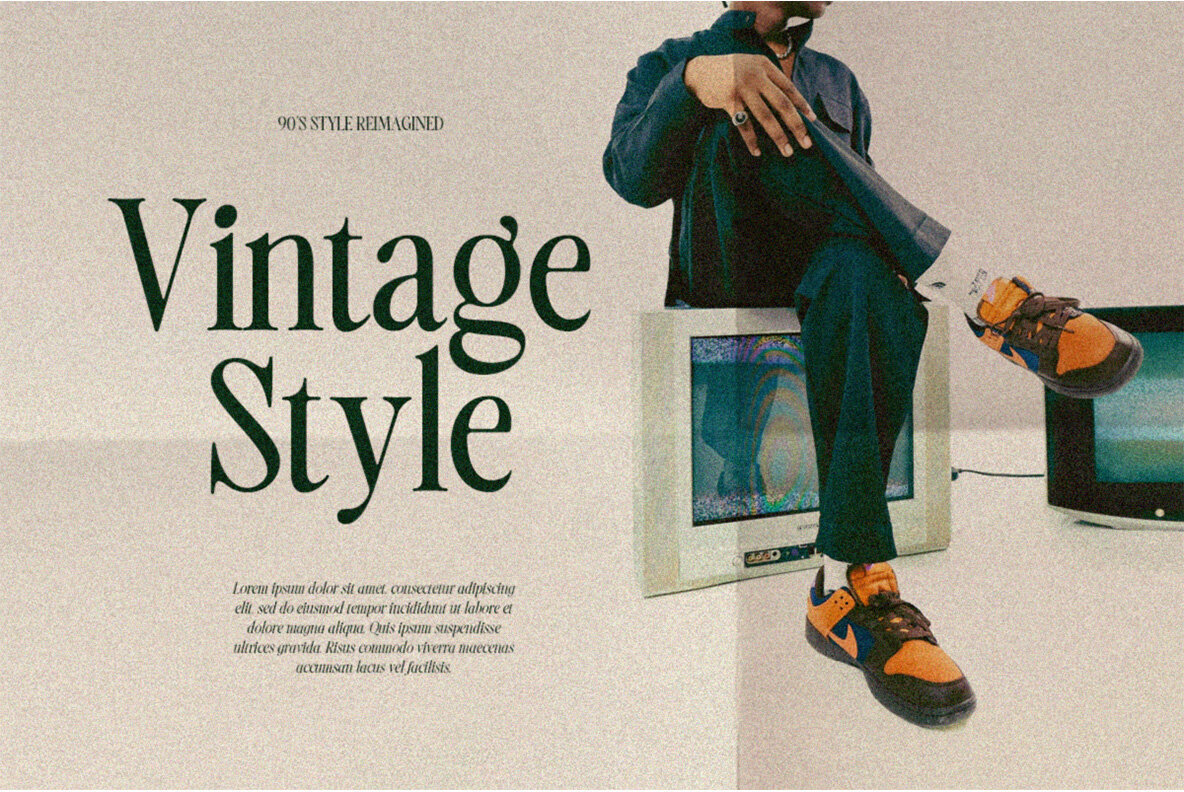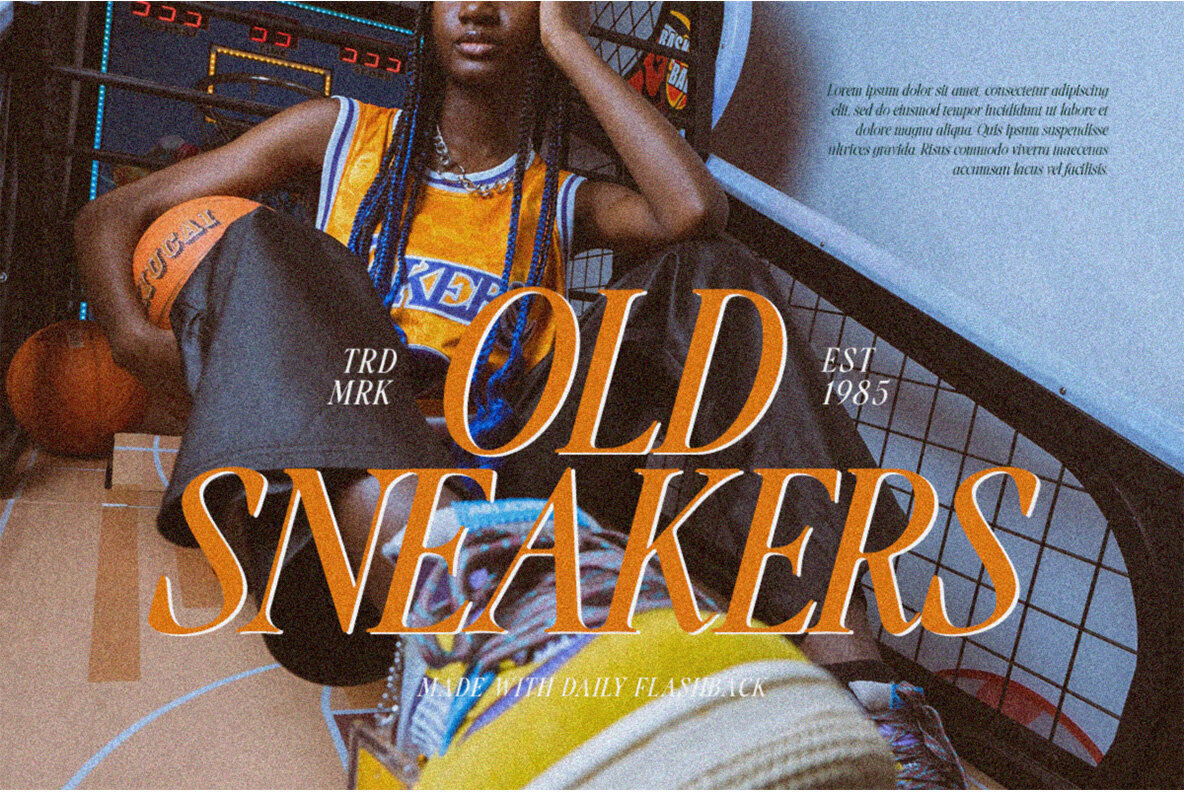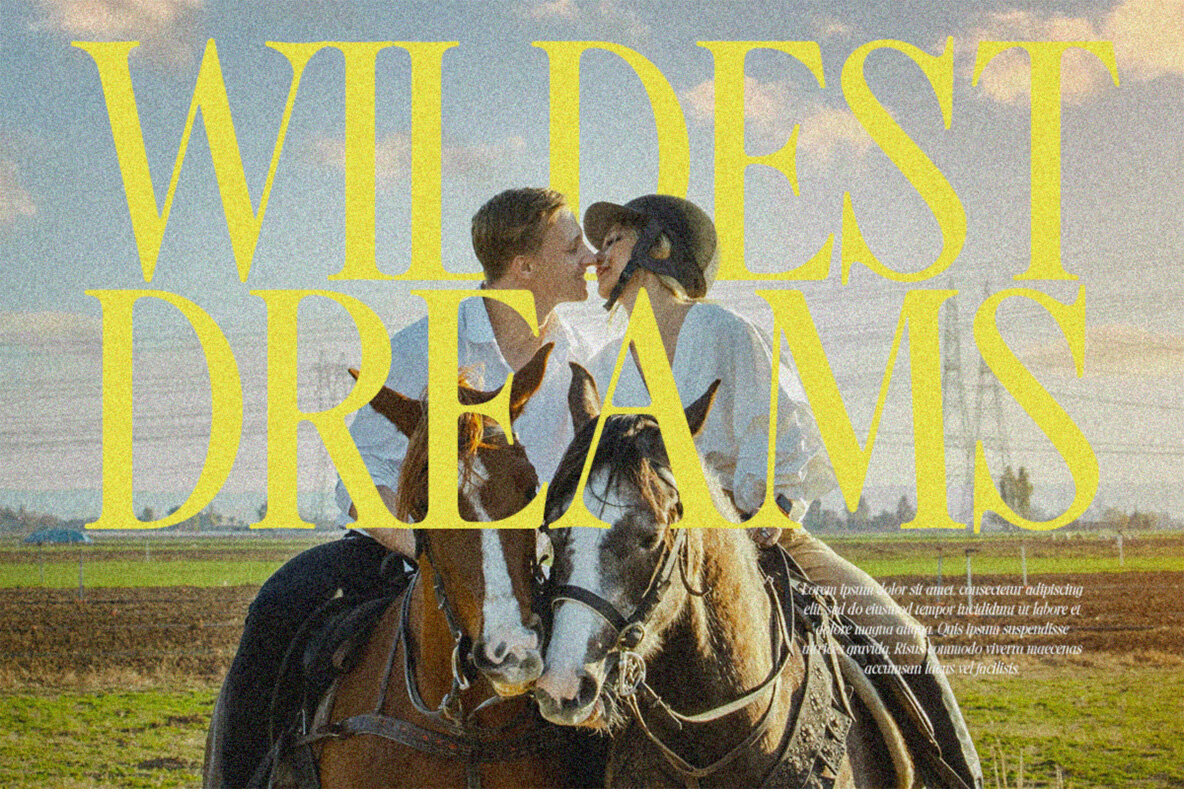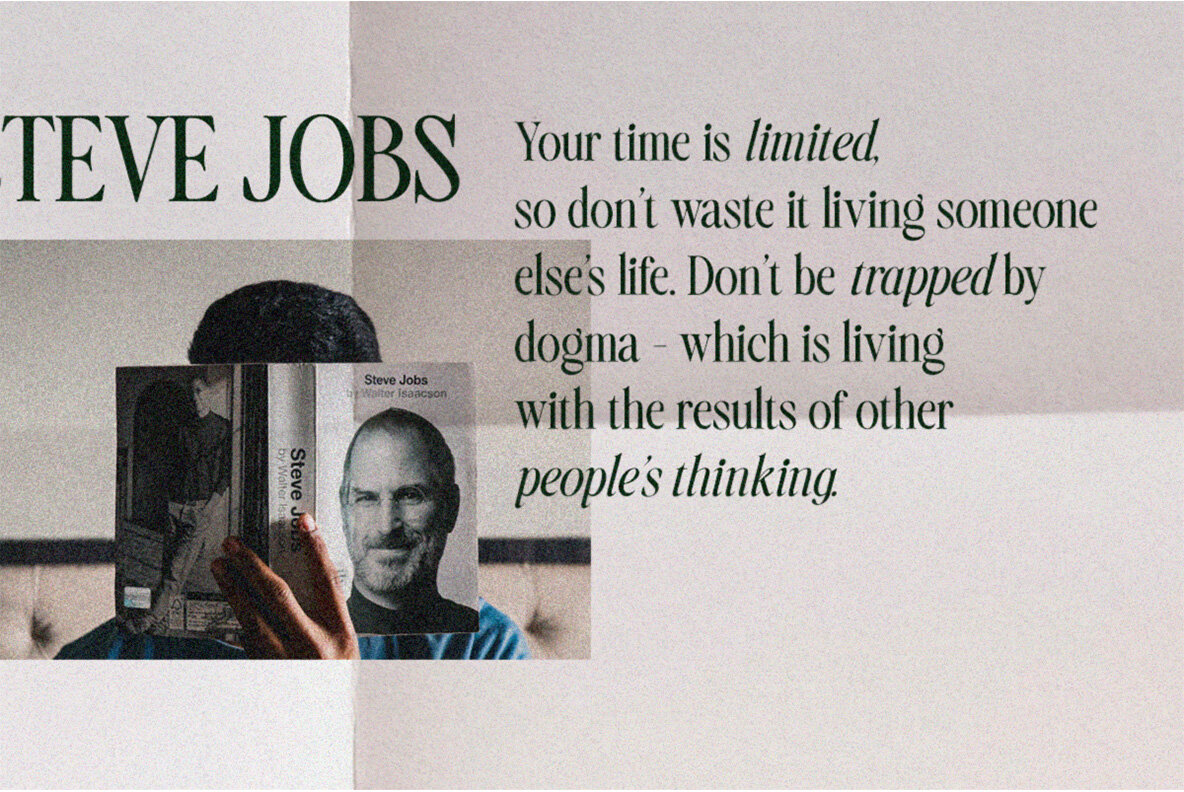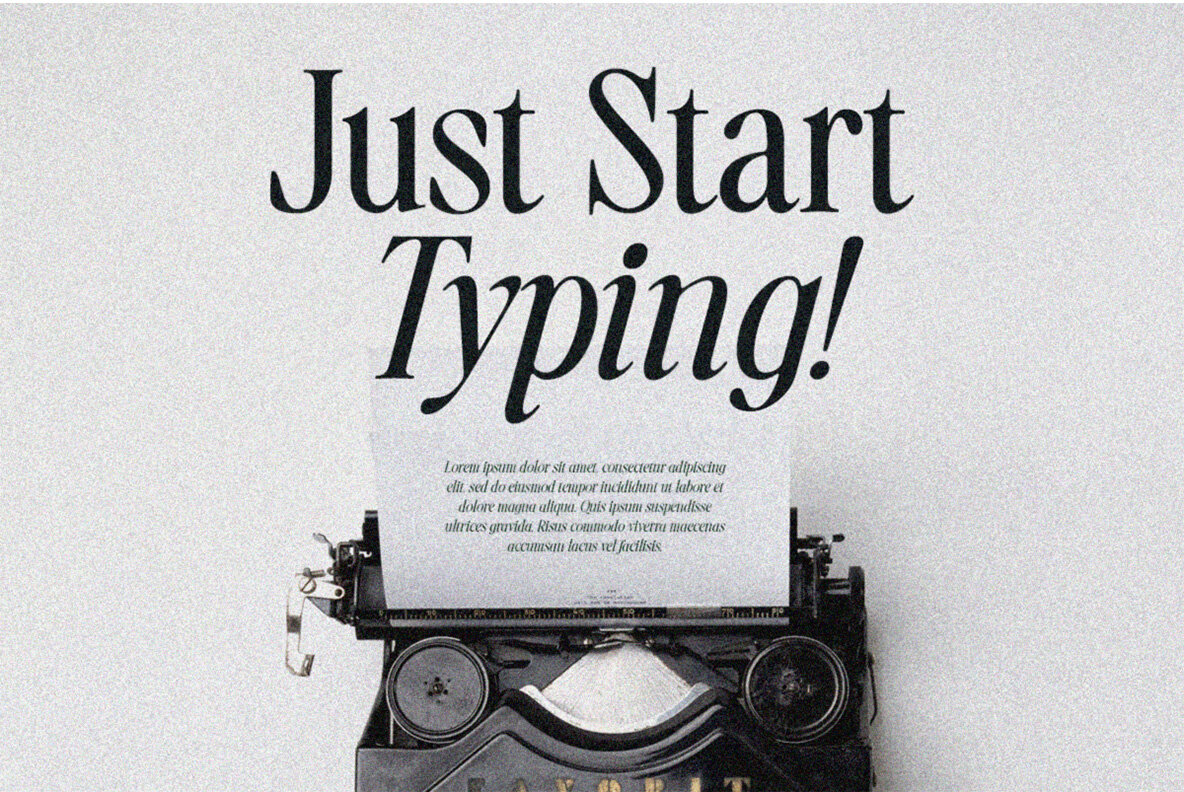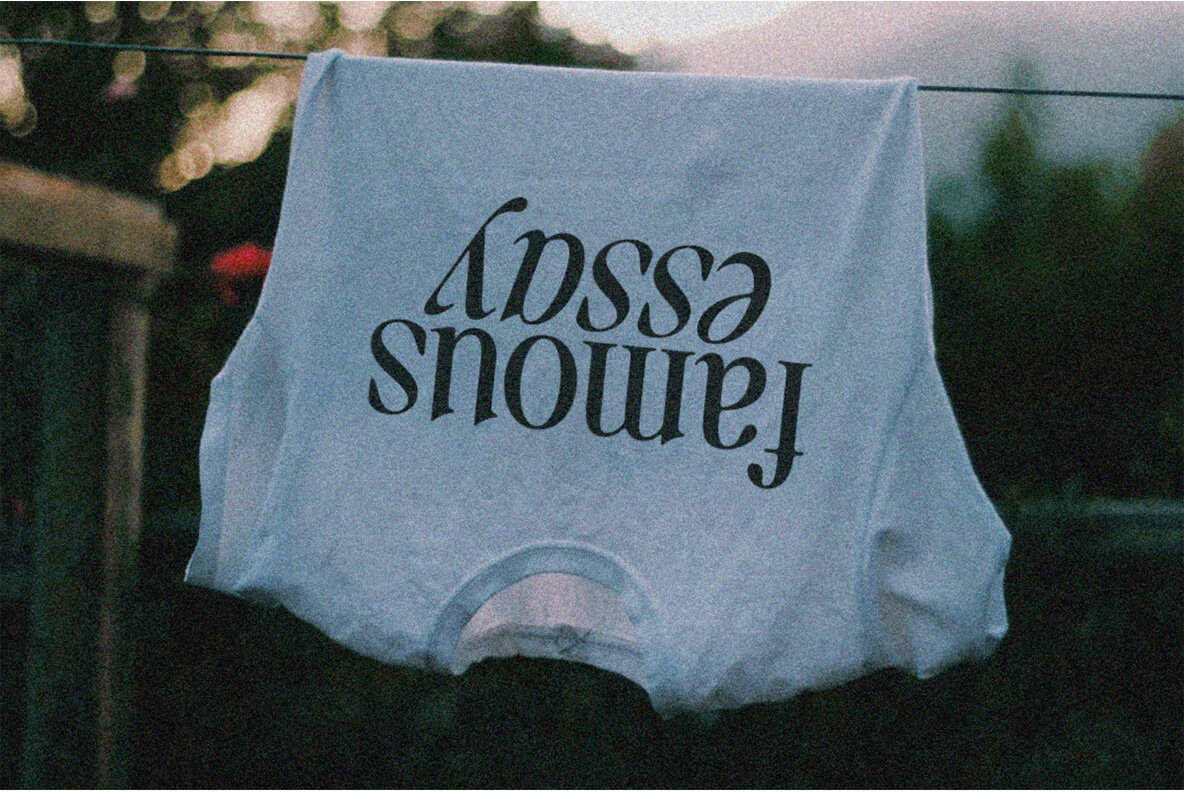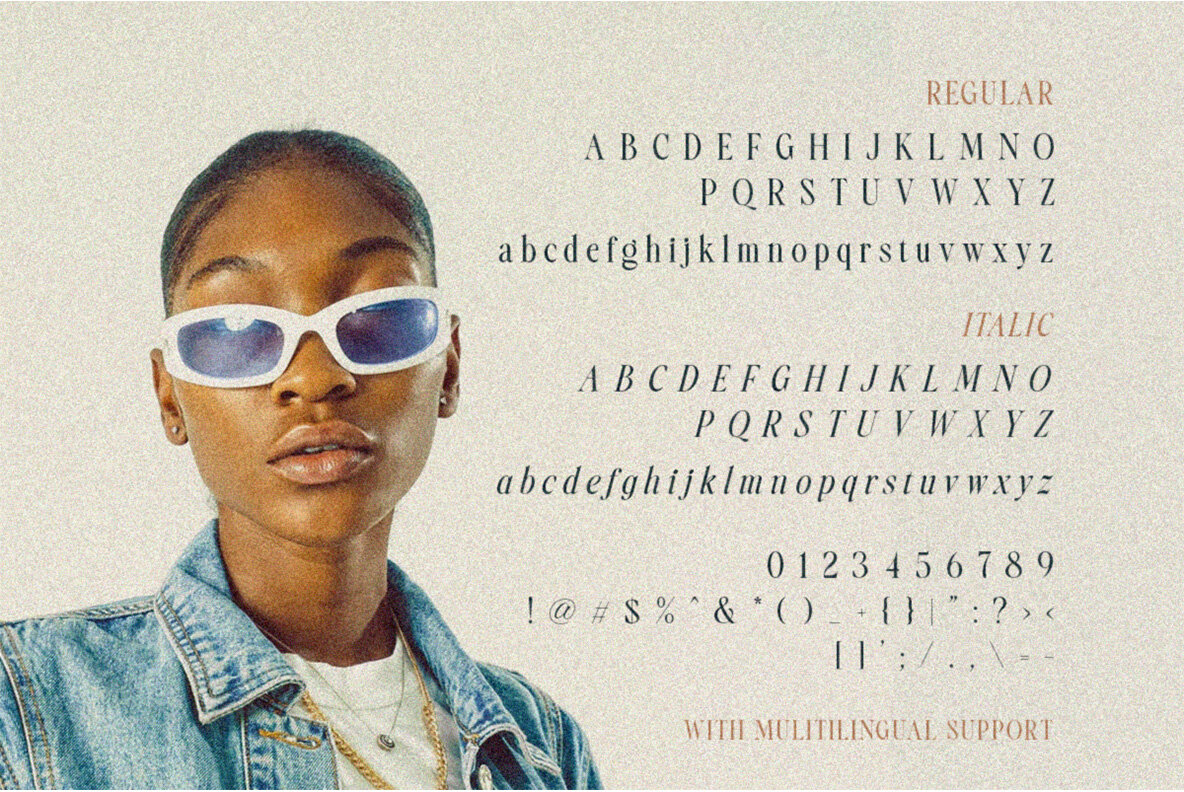
Daily Flashback Font
Daily Flashback is a refined serif typeface that elegantly bridges the worlds of tradition and modernity, making it an ideal choice for a diverse range of formal applications. From invitations and labels to logos and magazines, this typeface effortlessly enhances any project. Its appeal extends to books, greeting cards, packaging, and fashion, demonstrating versatility in various creative endeavors. To fully utilize Daily Flashback, programs supporting OpenType features and Glyphs panels, such as Adobe applications and Corel Draw, are recommended. For guidance on accessing OpenType features, visit Letterhend Studio's online resources.Daily Flashback: A Sophisticated Serif Typeface